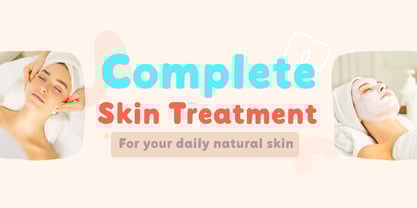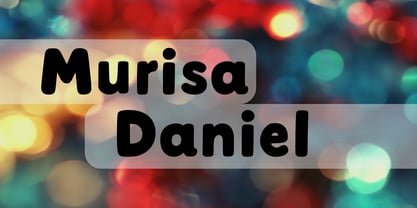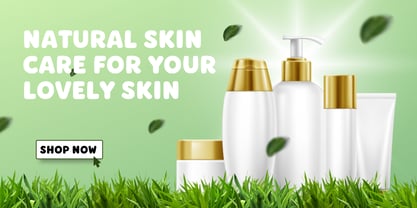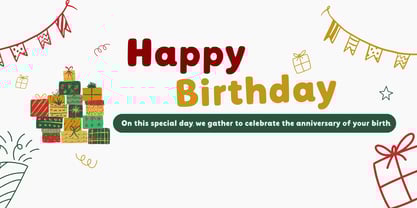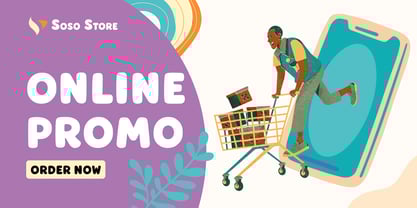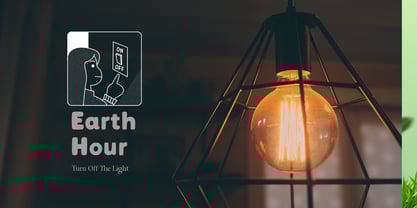
Murisa Daniel
The Murisa Daniel Font Family was designed by Lili Sadili and published by Murisa Studio. Murisa Daniel contains 2 styles and family package options.
Say hello to Murisa Daniels — a cheerful sans serif typeface designed to spark imagination and joy! Crafted with young readers in mind, this font blends clean lines with a friendly personality, making it ideal for children’s books, educational materials, toy packaging, and playful branding.
🧸 Why you'll love it:
• Rounded edges and soft curves create a warm, approachable feel
• Clear letterforms ensure readability for early learners
• Versatile enough for headlines, body text, and creative layouts
• Includes multilingual support and essential punctuation
Whether you're designing a whimsical storybook or a vibrant classroom poster, [Your Font Name] brings a touch of fun and clarity to every project. Let your designs speak the language of joy!